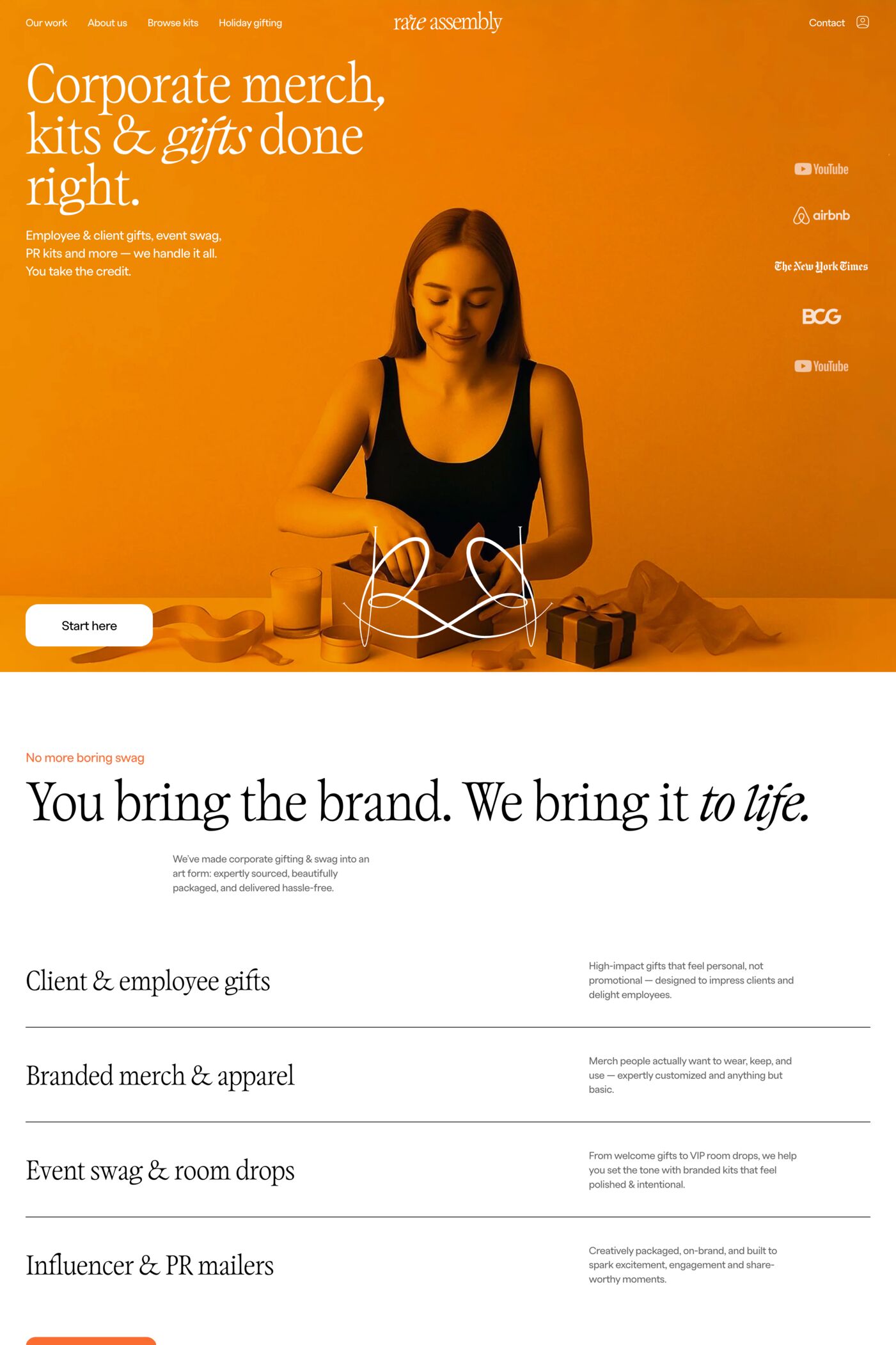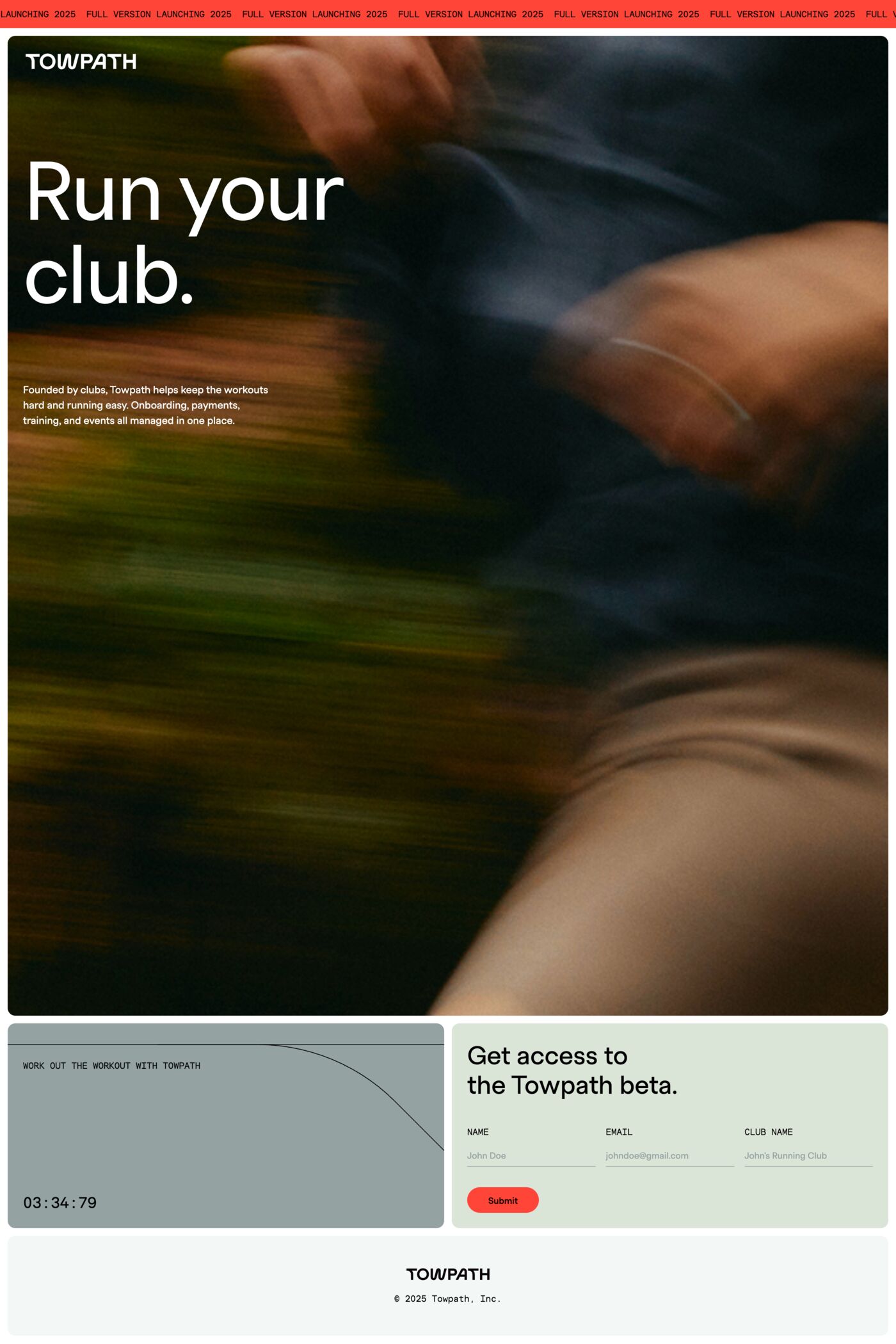
Polar is a sans-serif typeface from FROST.
Polar is a geometric sans family. Originally designed and released in 2018, Polar has undergone a complete update with refined glyphs, improved kerning and the introduction of new opentype features that include additional stylistic alternates.
A1 features 2 websites using Polar, including Towpath and Rare Assembly. They lean towards Big type, Bento, and Photography design styles, and they’re most often built with Shopify.